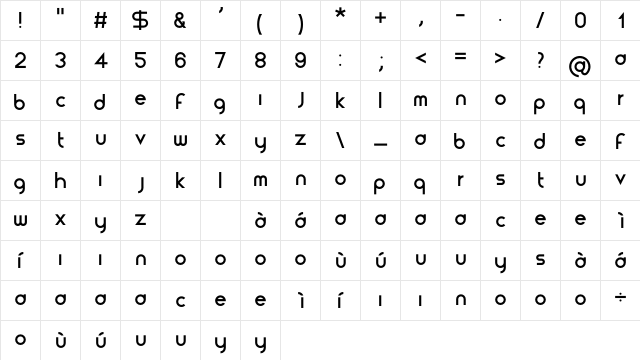
Unisono Lowercase Regular
Design Context for Unisono Lowercase Typeface
Unisono Lowercase is a composed and adaptable typeface that performs quietly and consistently across a wide range of design contexts.
Pro Tip: Use Unisono Lowercase in both headline and body roles to test its range before committing to a single application.